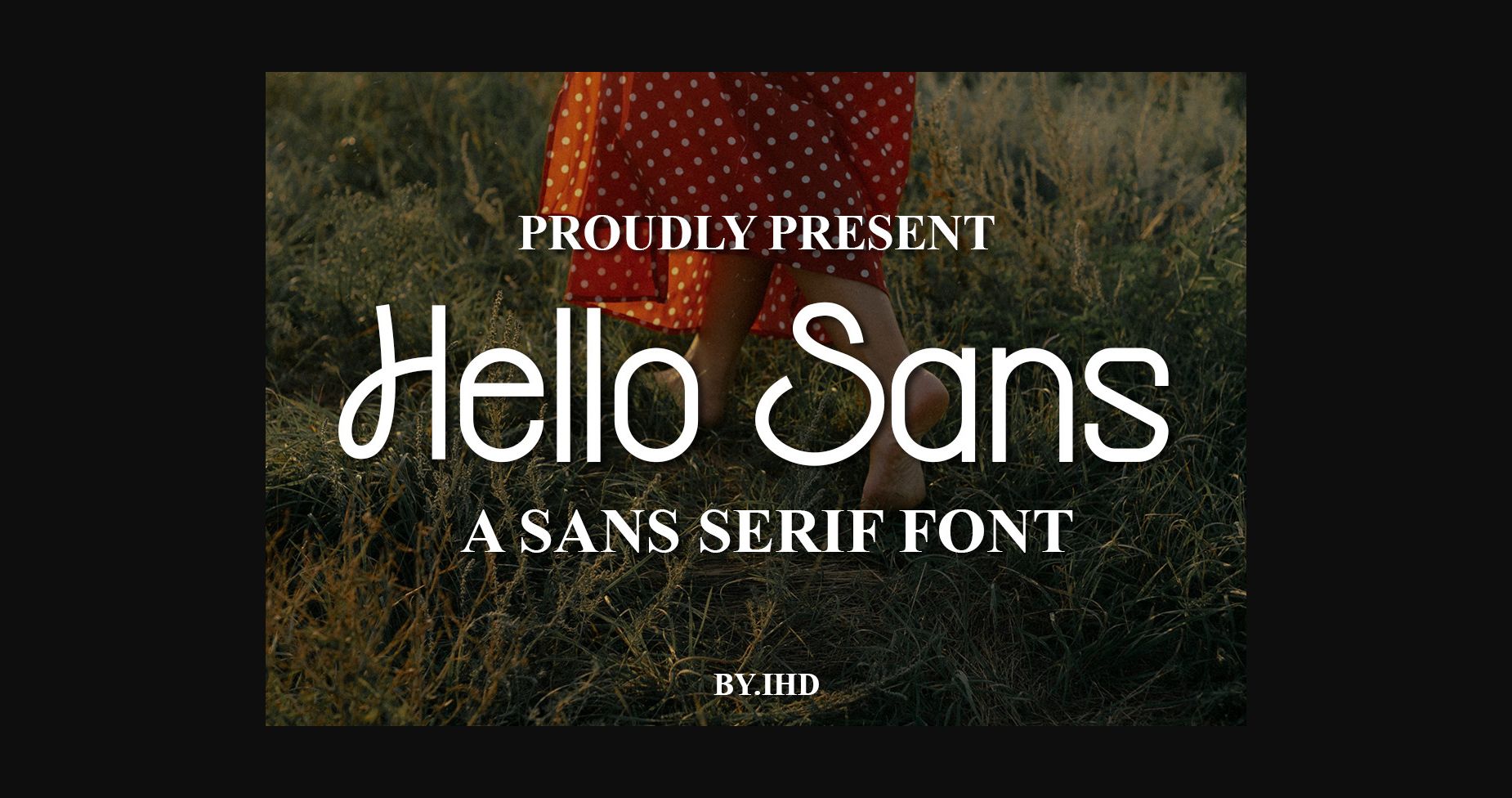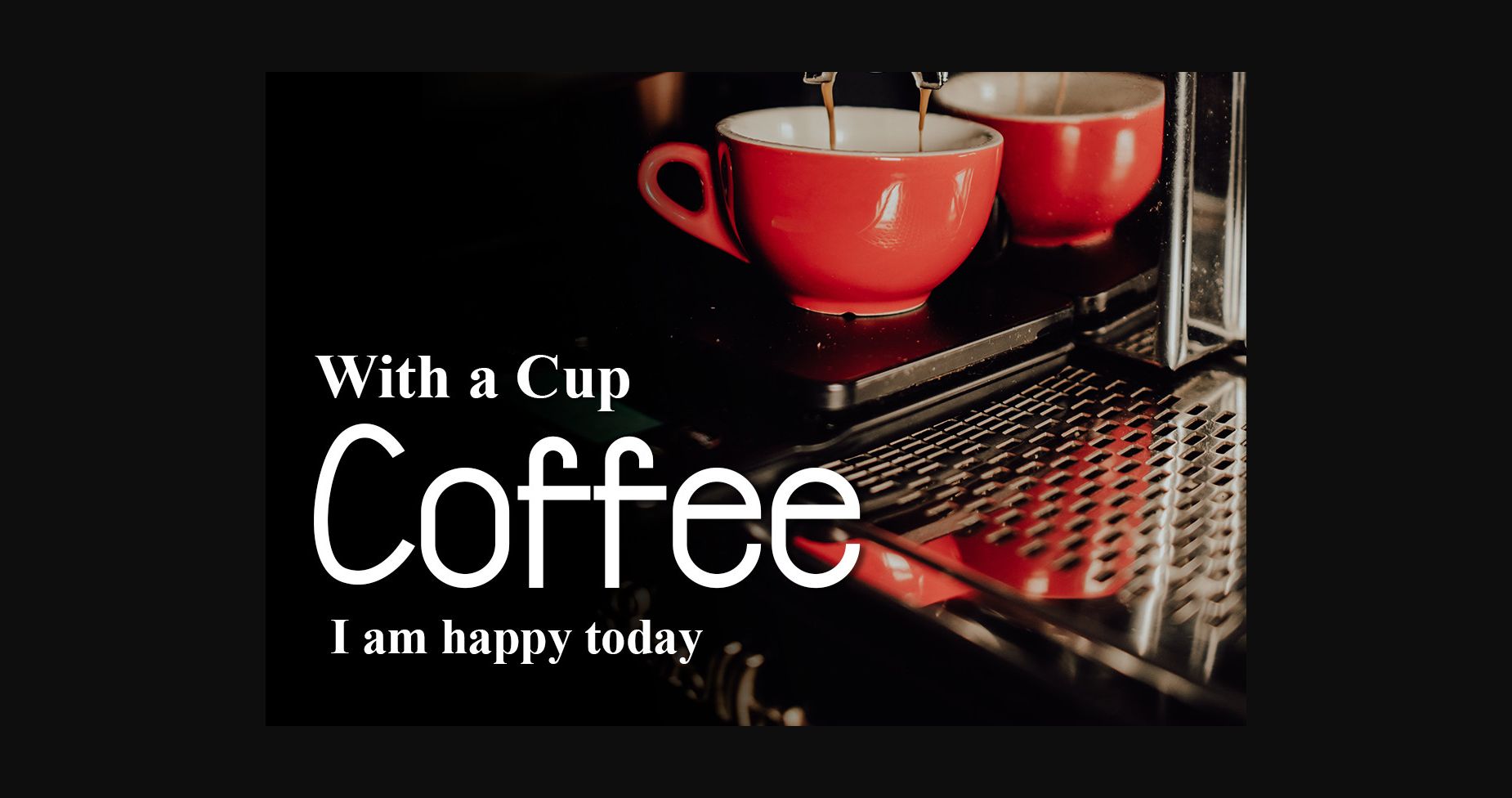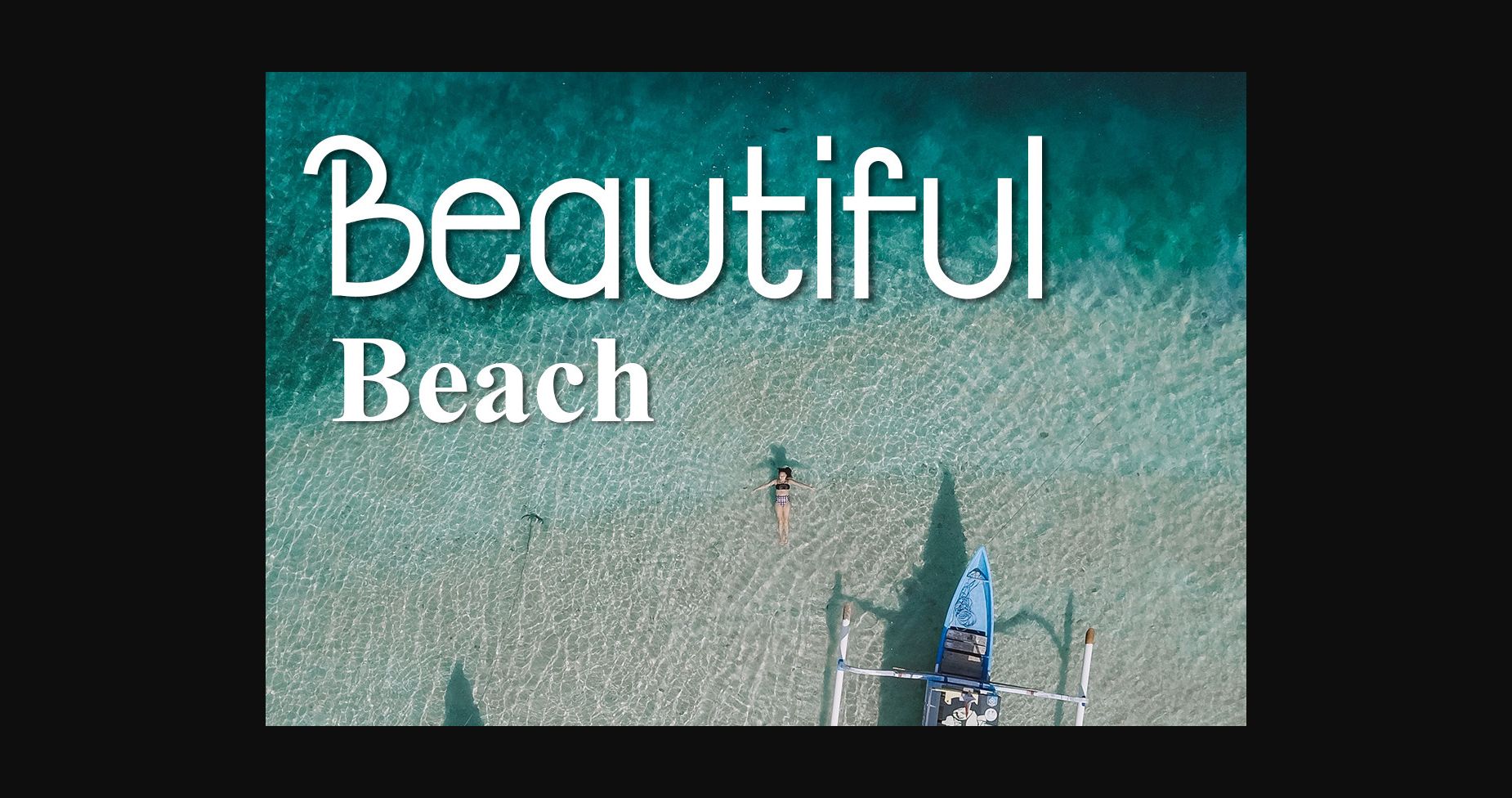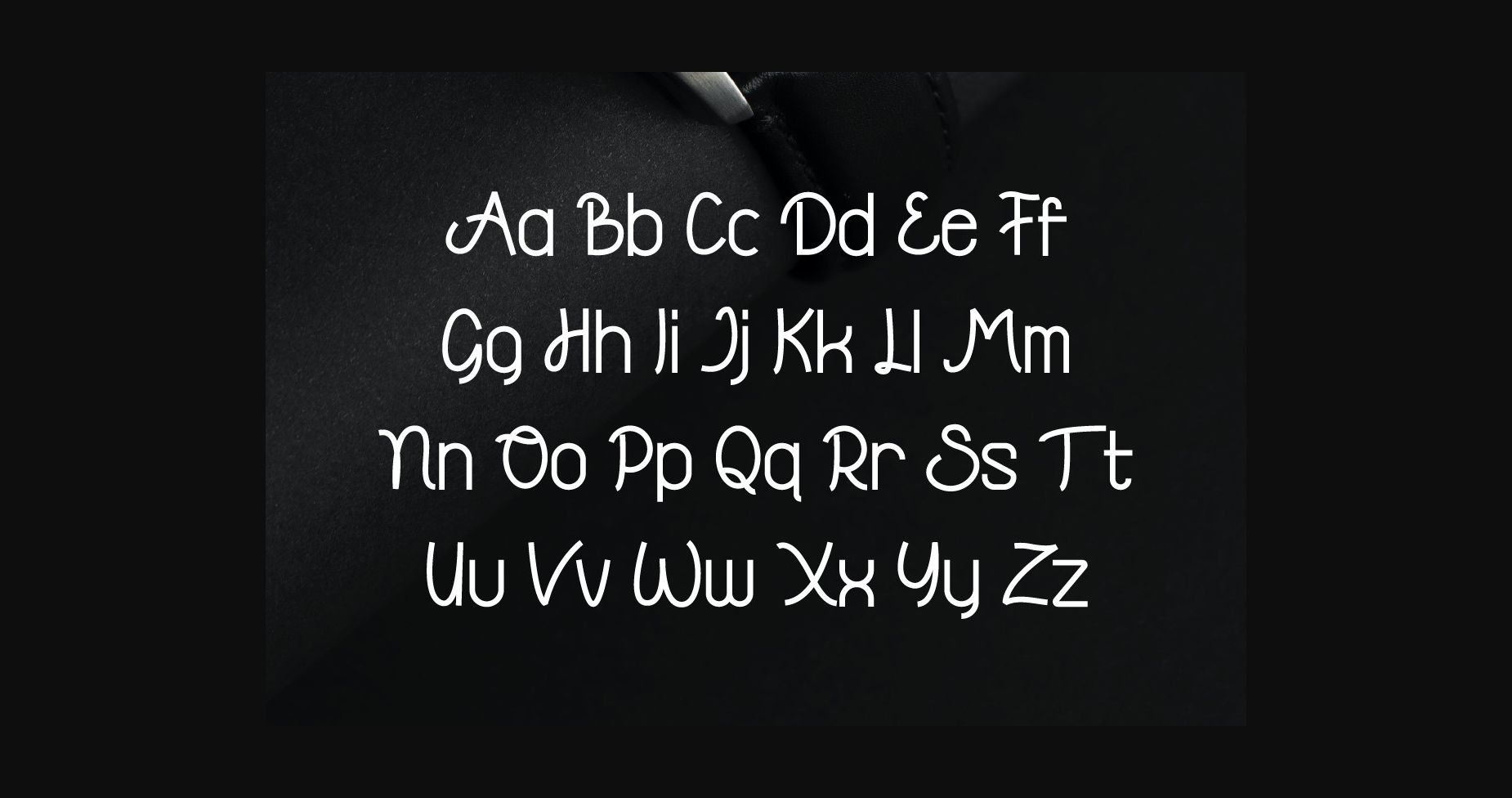
About Hello Sans Font
Hello Sans is a modern sans serif font combined with a sweet touch and beautifully curved letters, using a touch of soft curves so that it is pleasing to the eye. It will add a touch of luxury and style to your branding and logo design projects.